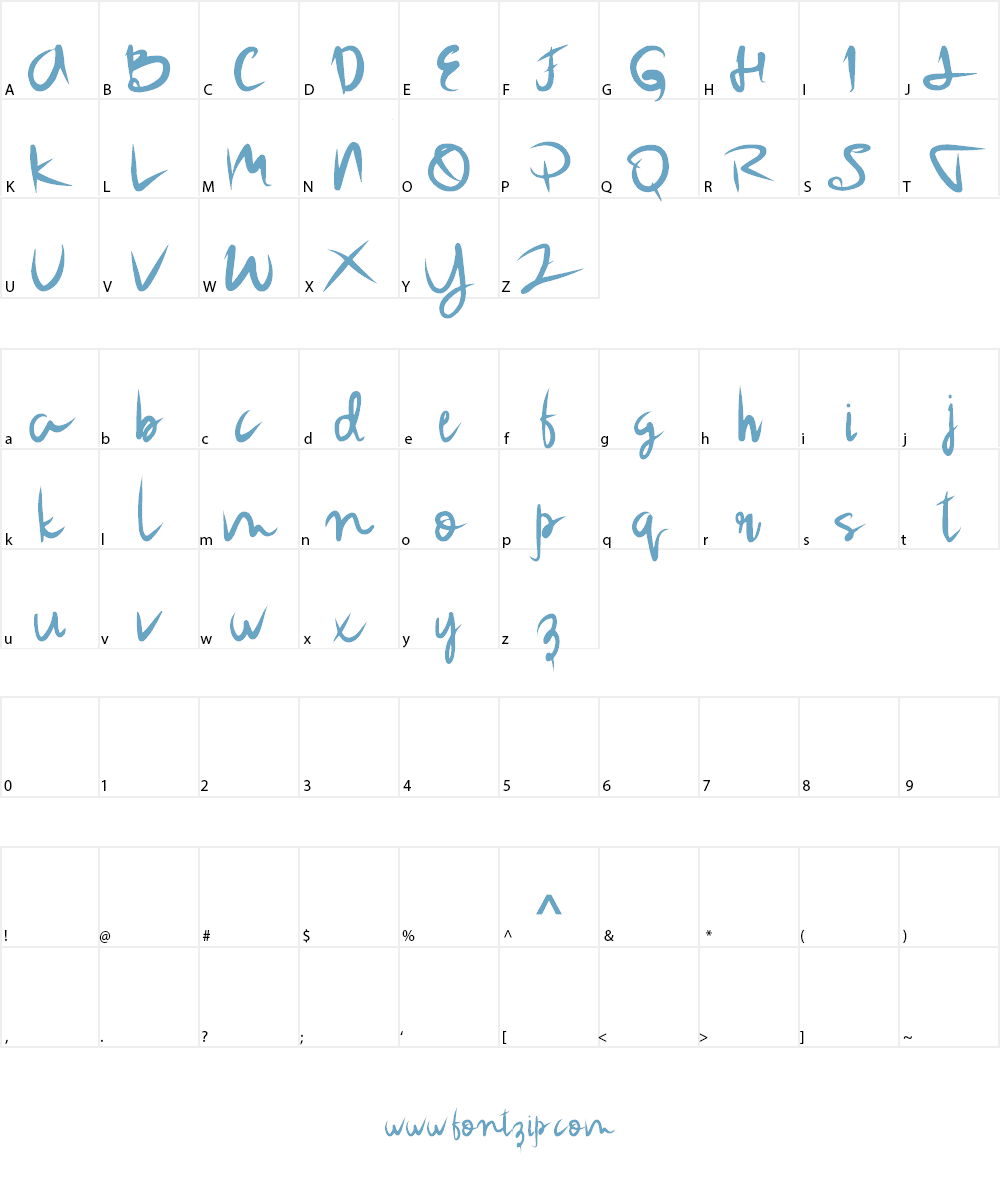
Calon Biny Font with modern style, is a beautiful hand lettering font. It has an elegant yet striking look, which makes it perfect for a wide range of designs.
Calon Biny font with brush style handwritten, this font will perfect for many different project ex: quotes, logo, blog header, poster, branding, fashion, apparel, letter, invitation, stationery, etc..